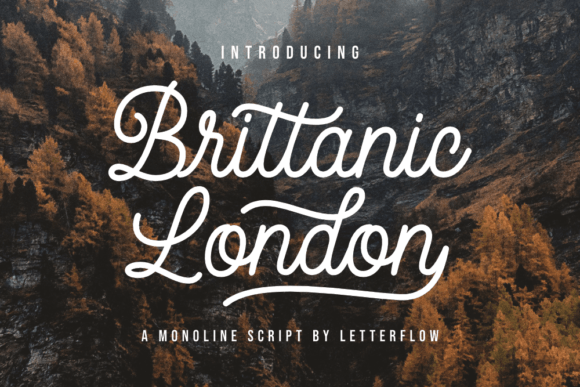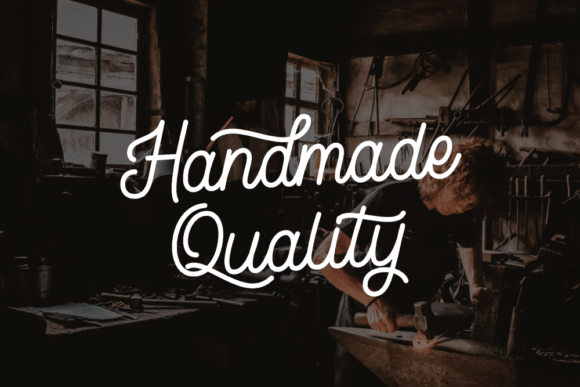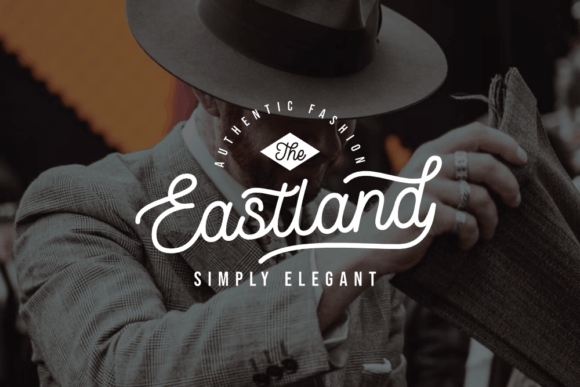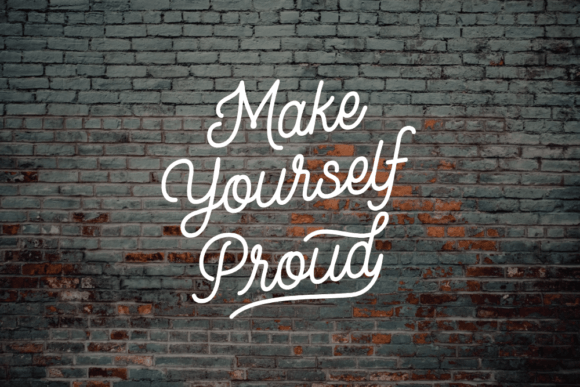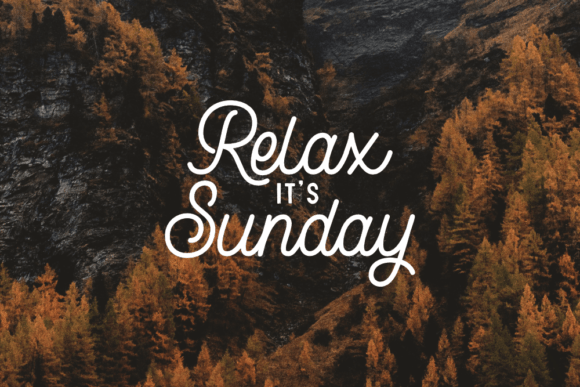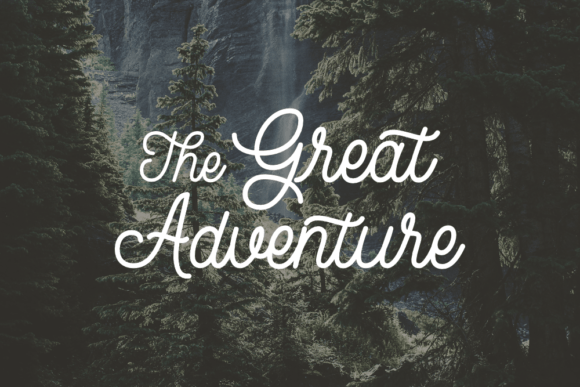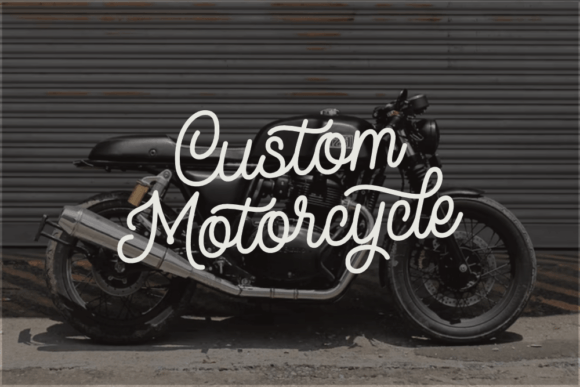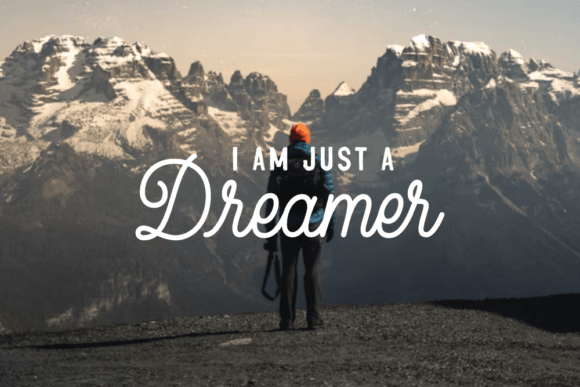
Brittanic London is a monoline script font, carefully handcrafted to become a true favorite. Its casual charm makes it appear wonderfully down-to-earth, readable, and, ultimately, incredibly versatile.
Brittanic London Font